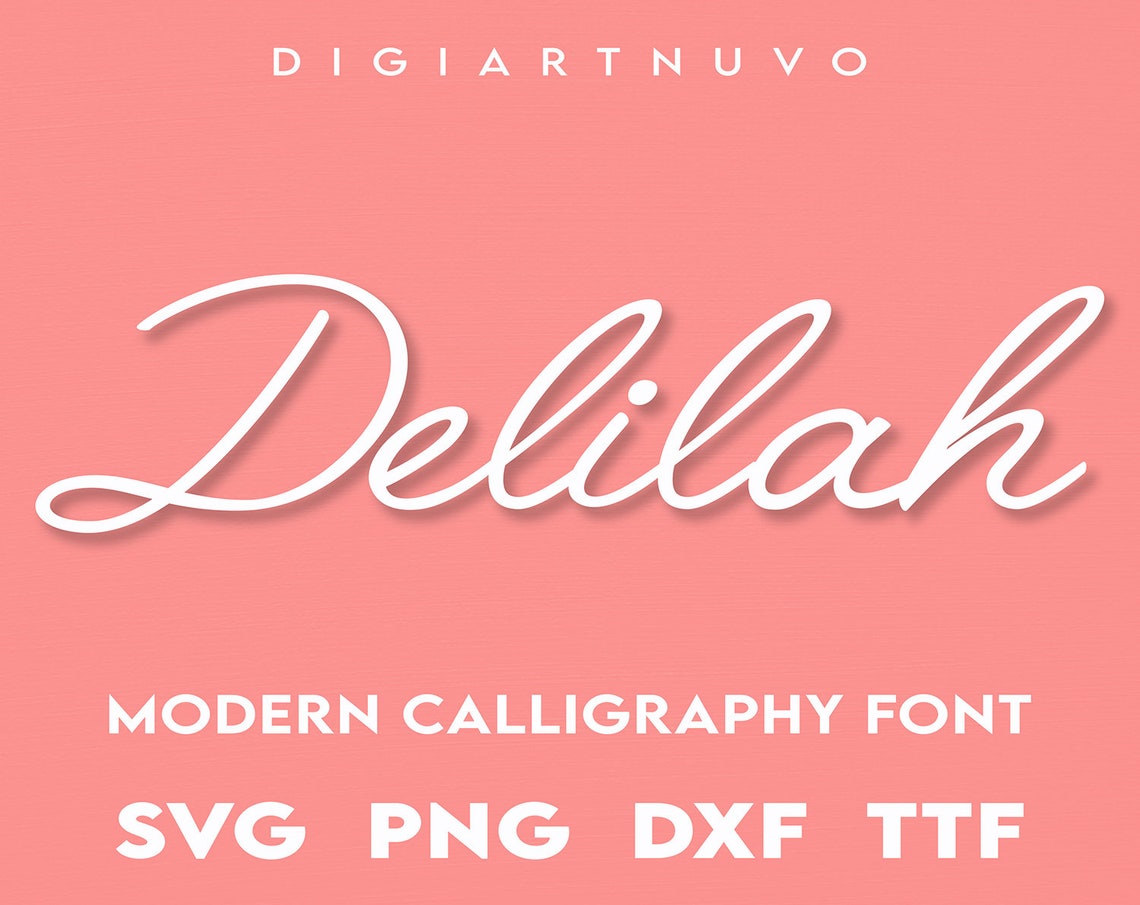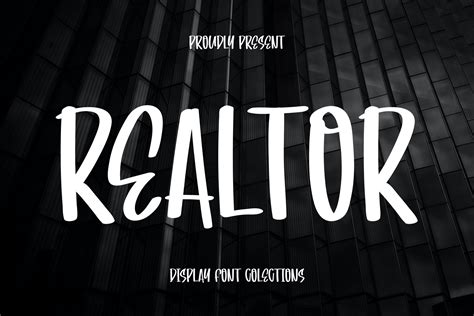
Realtor In Cursive Font . Mixing and matching fonts can be fun and effective, but don’t overdo it. Perfect for logos, signs, flyers, and.
These real estate fonts effortlessly fuse professionalism, charm, and adaptability, making them an excellent fit for diverse design. Check out our realtor logo cursive selection for the very best in unique or custom, handmade pieces from our templates shops. Stick to a couple that you really like and use them consistently.
35+ Best Cursive Fonts For Your Logo and Branding
Explore a world of elegance with our free real estate script fonts. Click to find the best 13 free fonts in the real estate style. Stick to a couple that you really like and use them consistently. Explore a world of elegance with our free real estate script fonts.
Realtor In Cursive Font - Explore a world of elegance with our free real estate script fonts. These real estate fonts effortlessly fuse professionalism, charm, and adaptability, making them an excellent fit for diverse design. This translator is essentially generating unicode cursive/script symbols which resemble letters from the latin alphabet (a, b, c,.). The cursive fonts can also be used in lowercase to change things.
Realtor In Cursive Font - Perfect for logos, signs, flyers, and. Stick to a couple that you really like and use them consistently. Every font is free to download! Perfect for sophisticated branding and stylish designs! This translator is essentially generating unicode cursive/script symbols which resemble letters from the latin alphabet (a, b, c,.).
Realtor In Cursive Font - Click to find the best 13 free fonts in the real estate style. Looking for real estate fonts? Mixing and matching fonts can be fun and effective, but don’t overdo it. This translator is essentially generating unicode cursive/script symbols which resemble letters from the latin alphabet (a, b, c,.). Perfect for logos, signs, flyers, and.
Realtor In Cursive Font - Looking for real estate fonts? This translator is essentially generating unicode cursive/script symbols which resemble letters from the latin alphabet (a, b, c,.). Perfect for logos, signs, flyers, and. Every font is free to download! Perfect for sophisticated branding and stylish designs!
Realtor In Cursive Font - Mixing and matching fonts can be fun and effective, but don’t overdo it. Click to find the best 13 free fonts in the real estate style. Explore a world of elegance with our free real estate script fonts. Here, you’ll find all kinds of real estate fonts perfect for your magazine covers, movie trailers, and also designing professional logos, especially.
Realtor In Cursive Font - Every font is free to download! The cursive fonts can also be used in lowercase to change things up a bit, while bold fonts like league spartan work well in all caps. This translator is essentially generating unicode cursive/script symbols which resemble letters from the latin alphabet (a, b, c,.). Check out our realtor logo cursive selection for the very.
Realtor In Cursive Font - Looking for real estate fonts? Stick to a couple that you really like and use them consistently. Perfect for logos, signs, flyers, and. Click to find the best 13 free fonts in the real estate style. Perfect for sophisticated branding and stylish designs!
Realtor In Cursive Font - Every font is free to download! Stick to a couple that you really like and use them consistently. The cursive fonts can also be used in lowercase to change things up a bit, while bold fonts like league spartan work well in all caps. Click to find the best 13 free fonts in the real estate style. Perfect for logos,.
Realtor In Cursive Font - These real estate fonts effortlessly fuse professionalism, charm, and adaptability, making them an excellent fit for diverse design. Here, you’ll find all kinds of real estate fonts perfect for your magazine covers, movie trailers, and also designing professional logos, especially if you’re. Perfect for logos, signs, flyers, and. Perfect for sophisticated branding and stylish designs! Click to find the best.
Realtor In Cursive Font - Click to find the best 13 free fonts in the real estate style. Mixing and matching fonts can be fun and effective, but don’t overdo it. Stick to a couple that you really like and use them consistently. Looking for real estate fonts? Explore a world of elegance with our free real estate script fonts.
Realtor In Cursive Font - This translator is essentially generating unicode cursive/script symbols which resemble letters from the latin alphabet (a, b, c,.). Explore a world of elegance with our free real estate script fonts. Perfect for sophisticated branding and stylish designs! The cursive fonts can also be used in lowercase to change things up a bit, while bold fonts like league spartan work well.
Realtor In Cursive Font - Here, you’ll find all kinds of real estate fonts perfect for your magazine covers, movie trailers, and also designing professional logos, especially if you’re. Explore a world of elegance with our free real estate script fonts. Check out our realtor logo cursive selection for the very best in unique or custom, handmade pieces from our templates shops. Every font is.